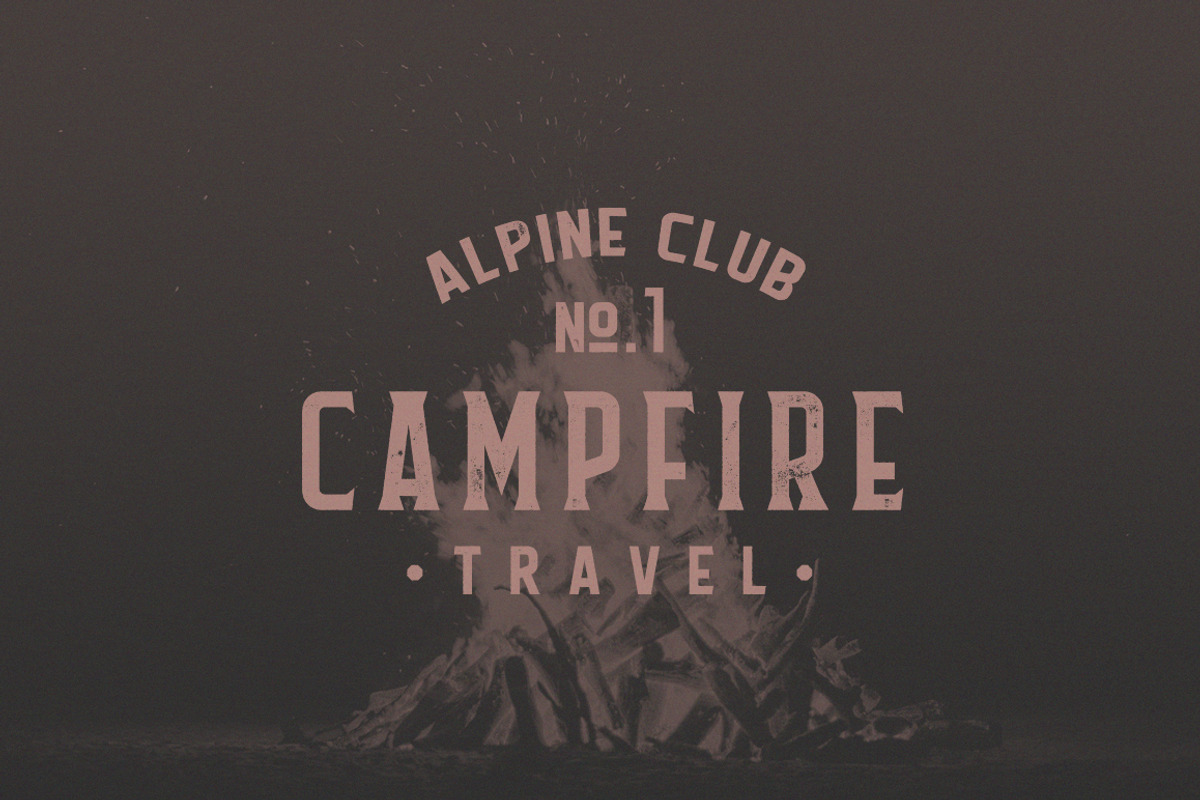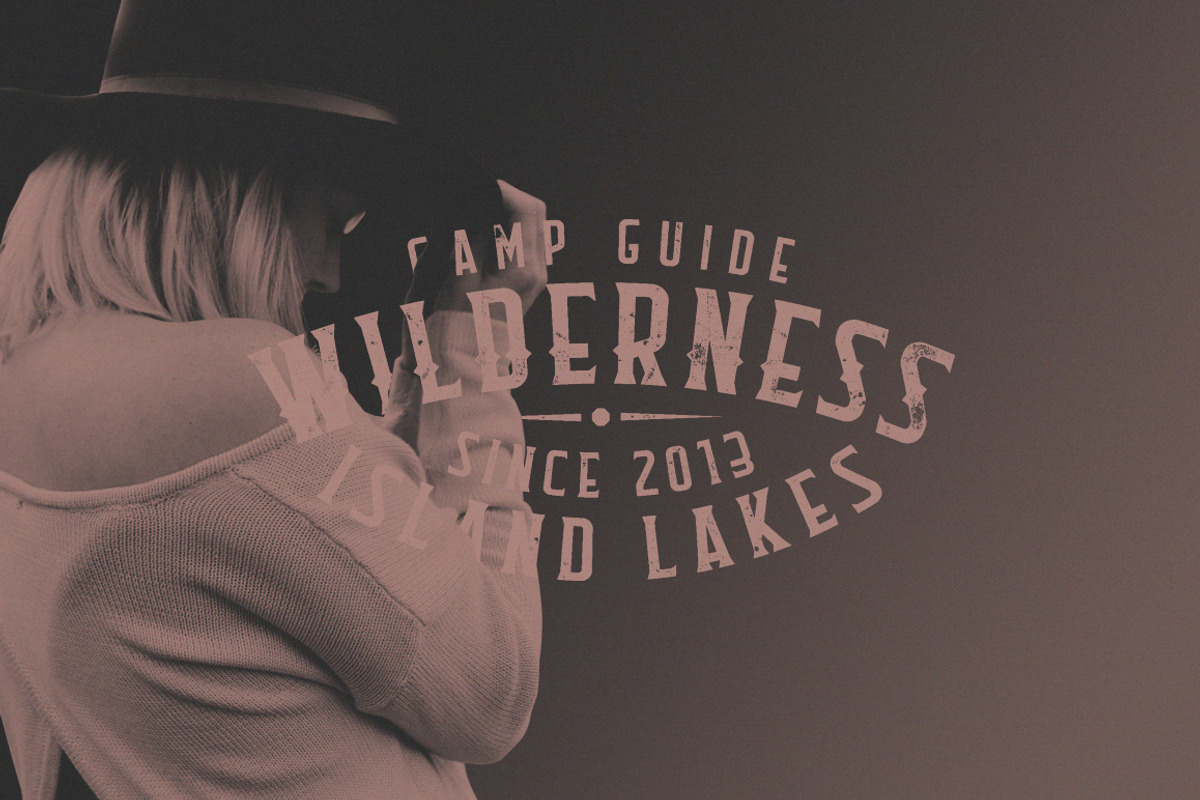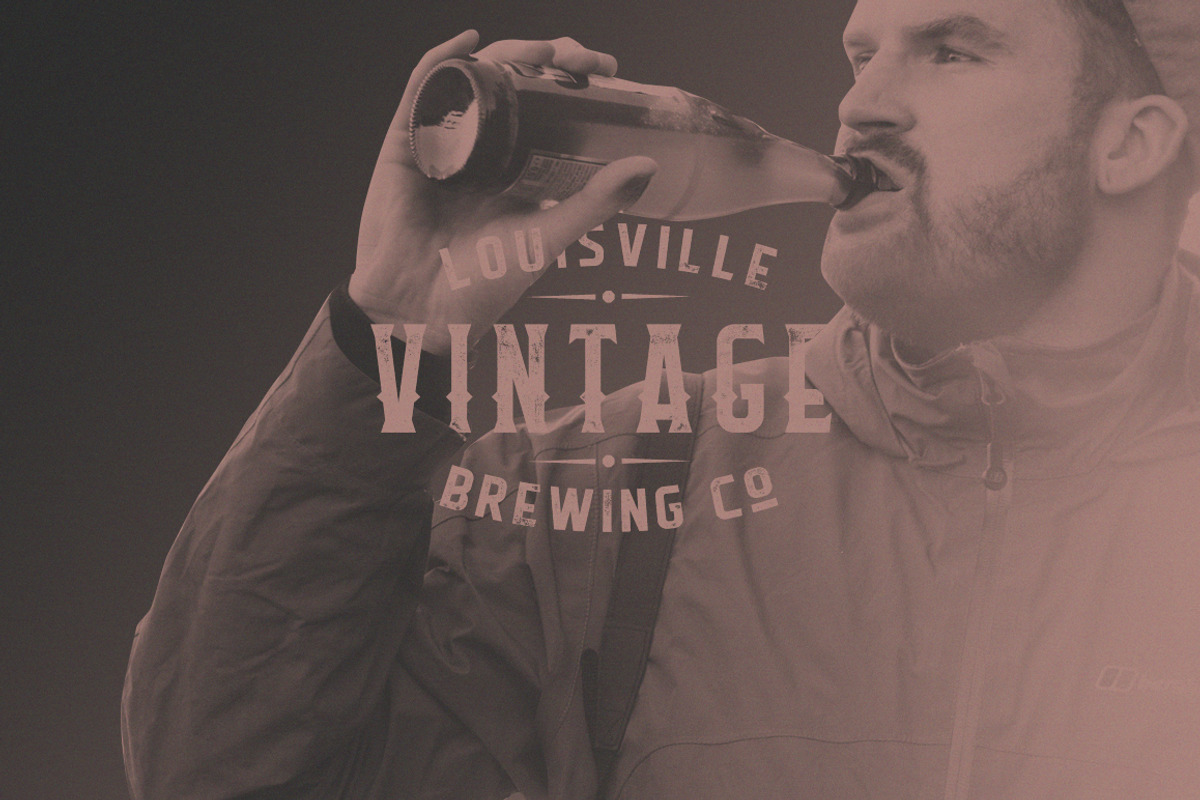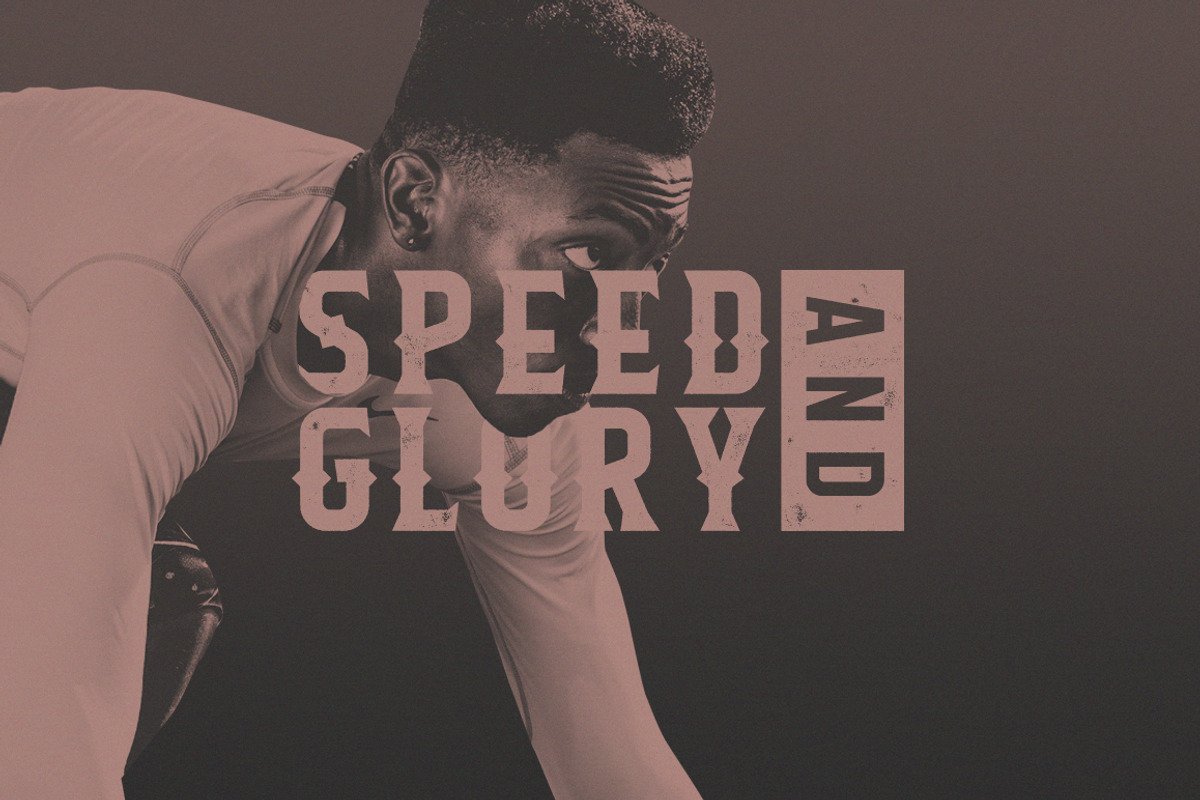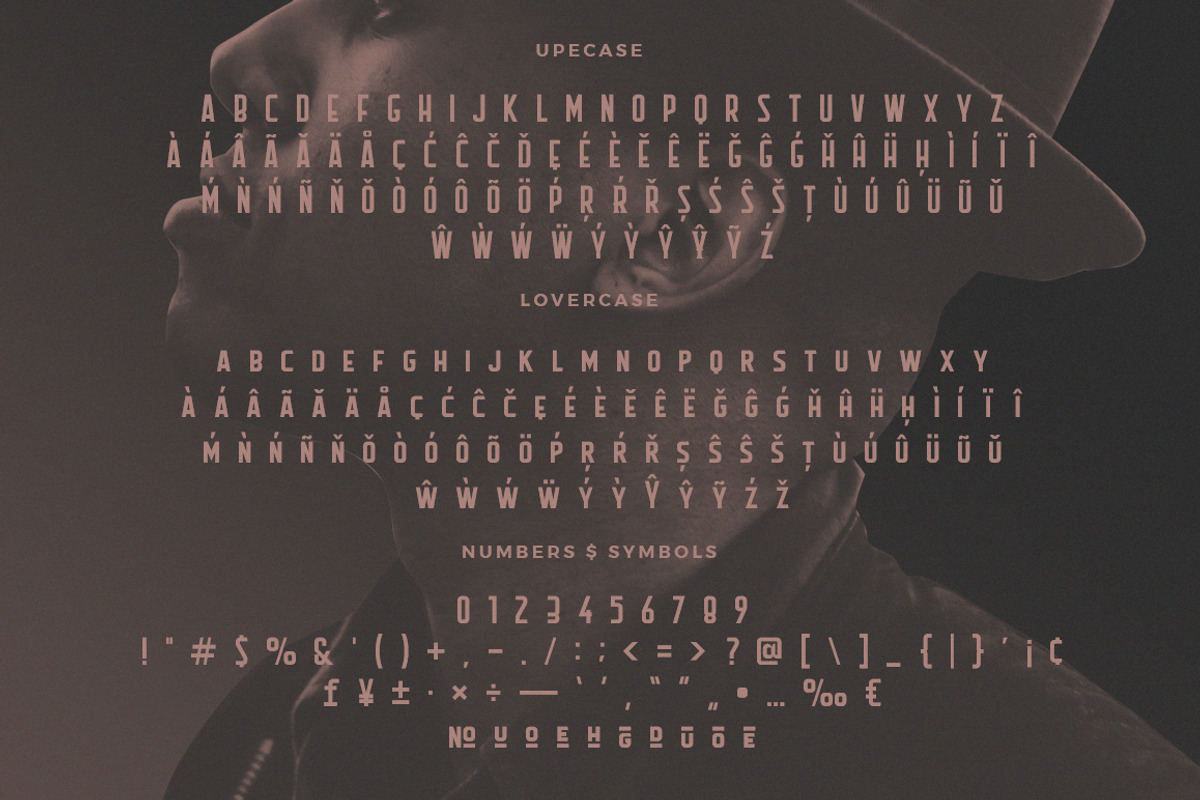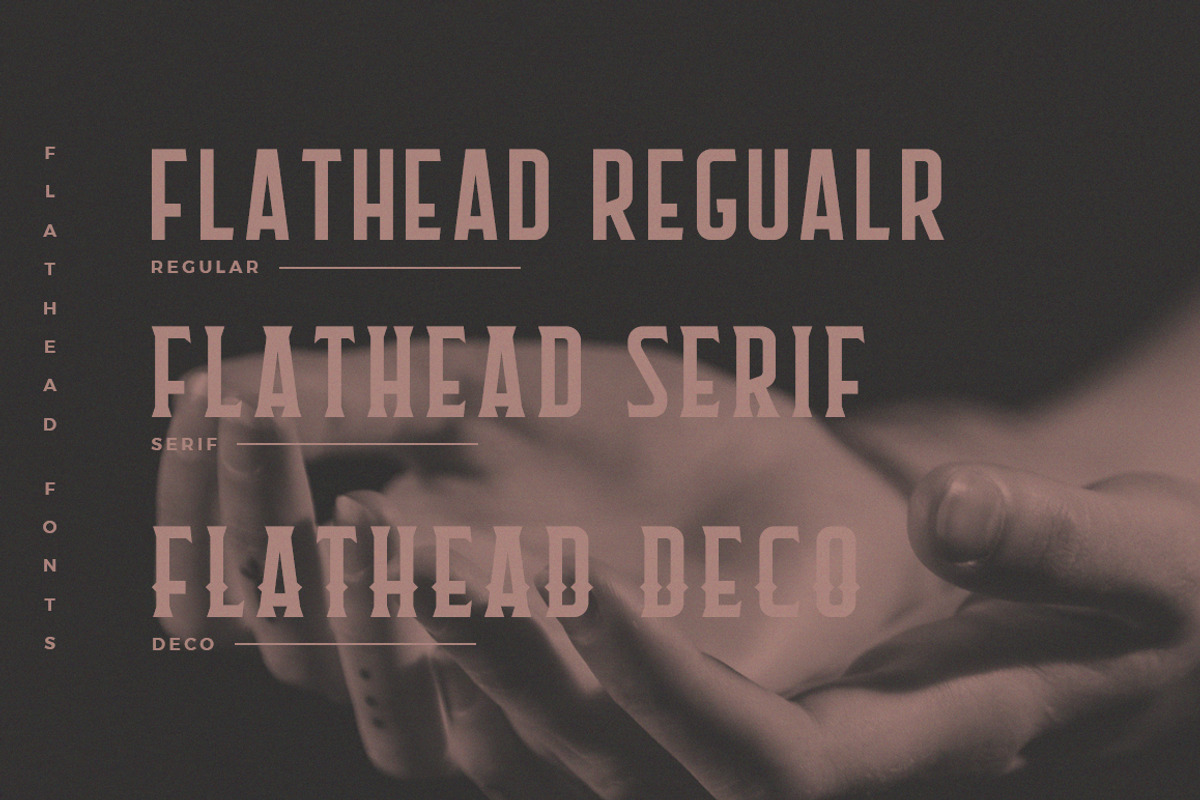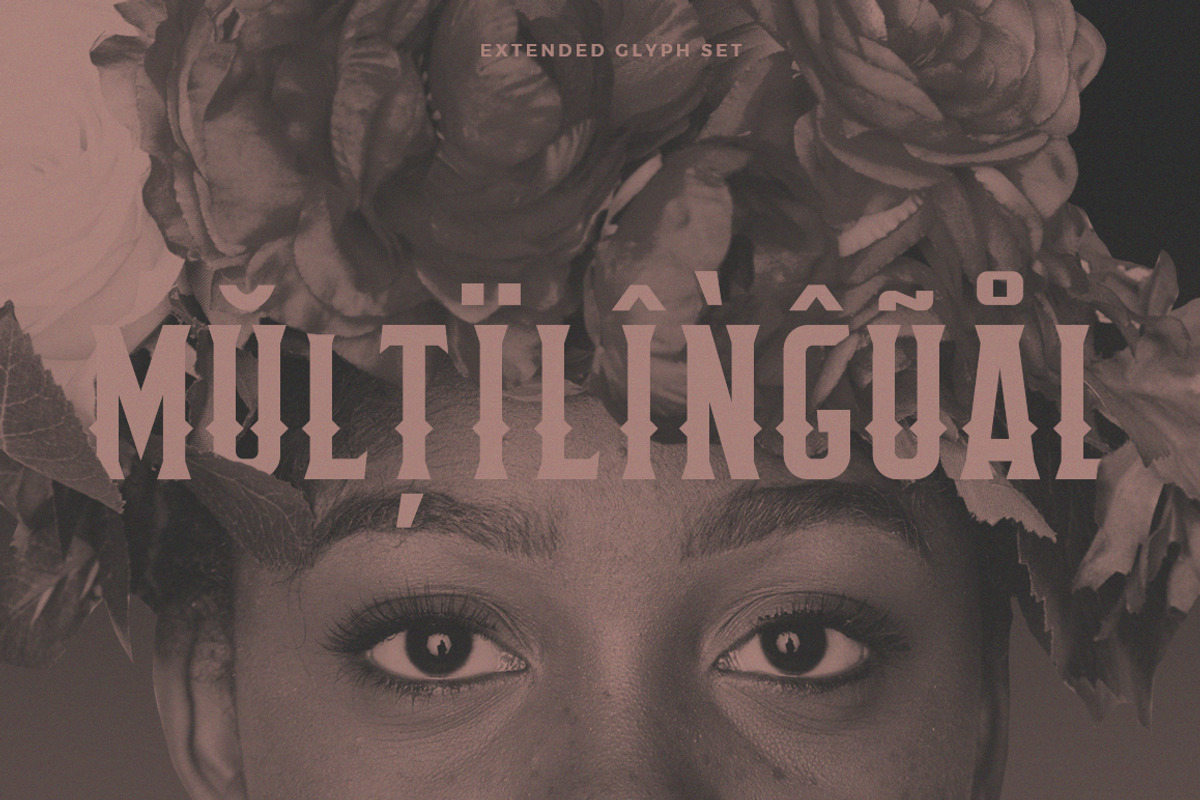
Flathead Round Vintag Typeface Font
Flathead Round Vintag Typeface Font by Headfonts is a font selected for branding, posters, packaging, typography.
- Flathead Round Regular
- Flathead Round Serif
- Flathead Round Deco
Flathead Round Vintag Typeface Font by Headfonts fits naturally into Branding, posters, packaging, typography.